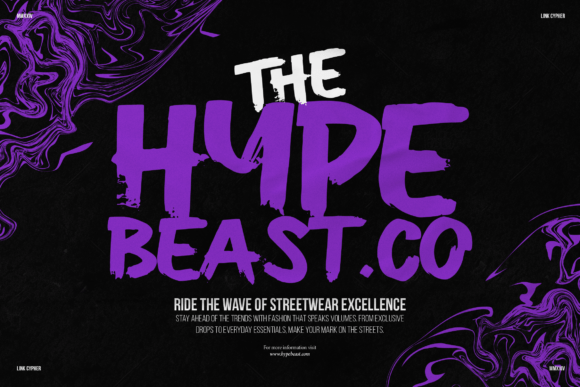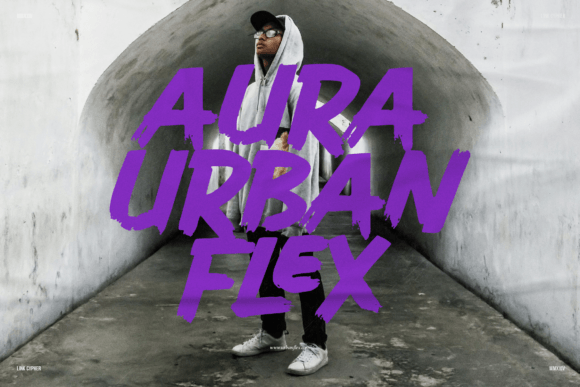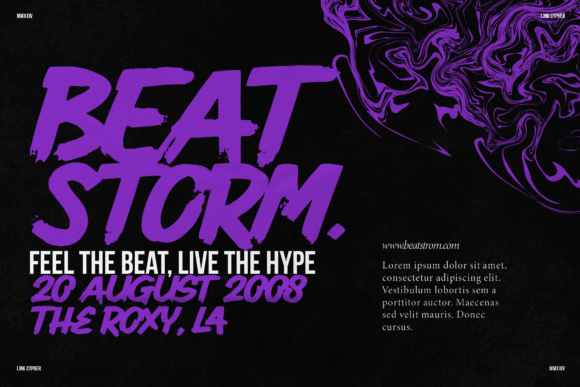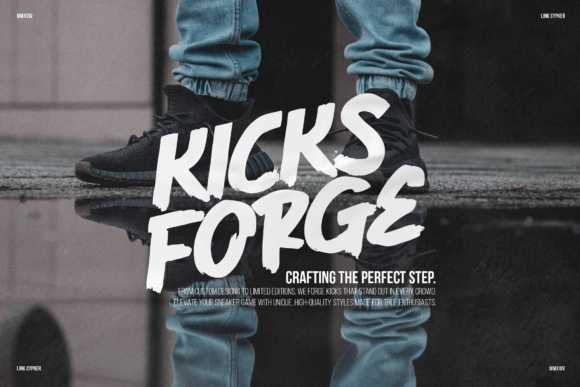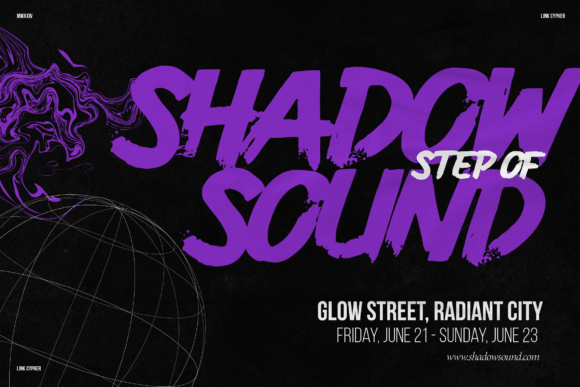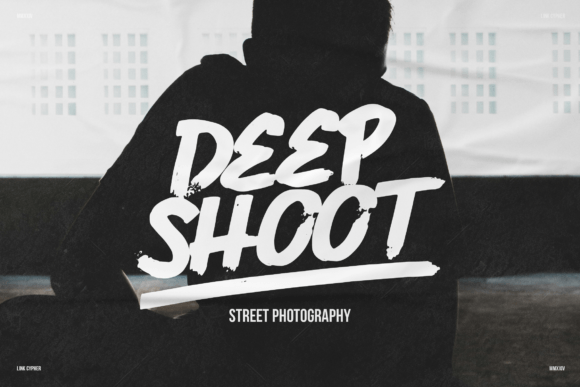
Introduction to Link Cypher Font
Link Cypher | All Caps Marker Font, from Denustudios, suitable for any projects such as: logos, branding projects, homeware designs, product packaging, mugs, quotes, posters, shopping bags, t-shirts, book covers, name card, invitation cards, greeting cards, label, photography, watermark, special events, and all your other lovely projects that need a All Caps Marker Font taste.
Key Features of Link Cypher Font
Why Choose Link Cypher Font?
Link Cypher Font offers exceptional quality and versatility, making it a valuable addition to your design toolkit. Whether you’re creating for personal projects or commercial use, Link Cypher Font delivers professional results.